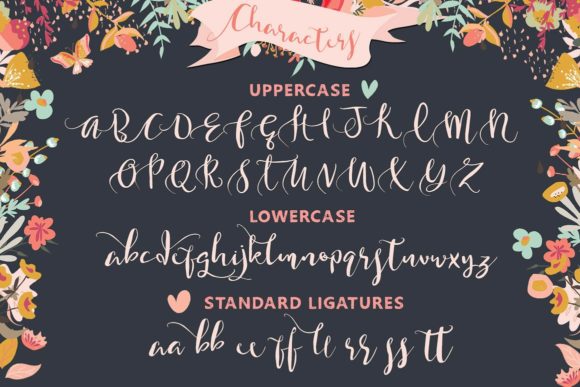
Introduction to Gorgeously You Font
Do you remember the moment when you stumbled upon the perfect font for your creative project? The one that took it from ordinary to extraordinary? For many designers, that moment is like a breath of fresh air, and it’s what makes the process of bringing their ideas to life so thrilling. Today, we’re excited to introduce you to one such game-changer: the Gorgeously You Font.
This unique calligraphy script boasts a feminine and elegant style that’s sure to add a touch of luxury to any design. Whether you’re working on a wedding invitation, a brand identity, or a digital product, the Gorgeously You Font is the perfect design resource to elevate your project. With its transparent background and high-quality design, you can be sure that your creative vision will shine through.
Key Features of Gorgeously You Font
- High-quality, elegant design perfect for creative projects, with a transparent background that allows for seamless integration into any design resource.
- Unique, hand-drawn style that adds a touch of personality to any design, making it a standout choice for creative projects.
- Designed to be versatile and easy to use, with a simple and intuitive design that makes it perfect for beginners and professionals alike.
Honest Review: Gorgeously You Font
I recently stumbled upon the Gorgeously You Font while searching for design resources for a creative project. I must say, it’s a beautiful addition to my design arsenal. ✨ The font is perfect for creating a sophisticated and elegant look in any design, from wedding invitations to business brochures.
One of the standout features of this font is its versatility. It can be easily paired with other fonts to create a unique and eye-catching design. Additionally, the font is available for a free download, making it a valuable resource for designers on a budget.
- Easy to use and pair with other fonts
- Limitations: ⚠️
- No transparent background option
- Limited font styles available
Overall, I’m impressed with the Gorgeously You Font and would highly recommend it to designers looking for a high-quality, free design resource. While it may have some limitations, it’s a valuable addition to any design collection.
For optimal results, use the Gorgeously You Font in conjunction with other design elements to create a cohesive look. Common use cases include headings, titles, and body text in creative projects, such as branding materials, social media graphics, and marketing materials. The free download of this font makes it an excellent resource for designers and non-designers alike.